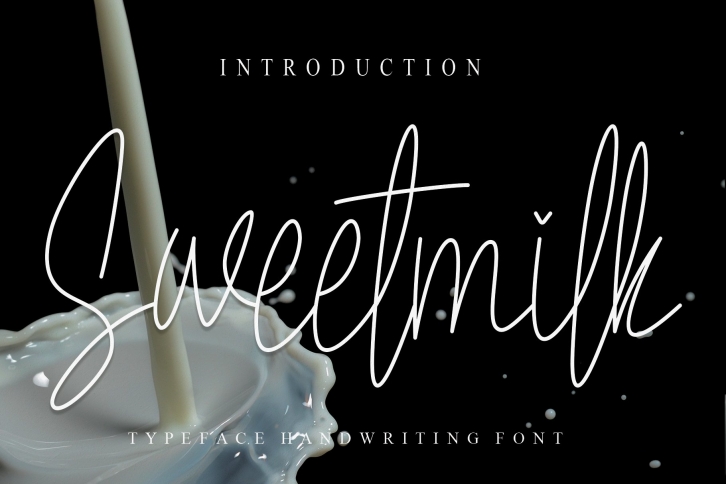
Sweetmilk is a gorgeous font that was realeased on March 16, 2021. The font can be used in many style contexts and design environments. Perfect for invitations, magazines, websites, logos, and more! It was designed by creativewhitee and the file size is 17.7 MB. Thanks for checking out this font!